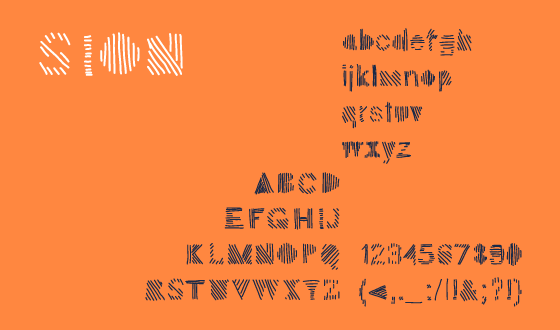
Font name: | Sion |
Author: | David Pache |
Note by David Pache | |
Sion is a geometric, experimental typeface created using the touchscreen of an Ipad. The font is available for all to use for free. |